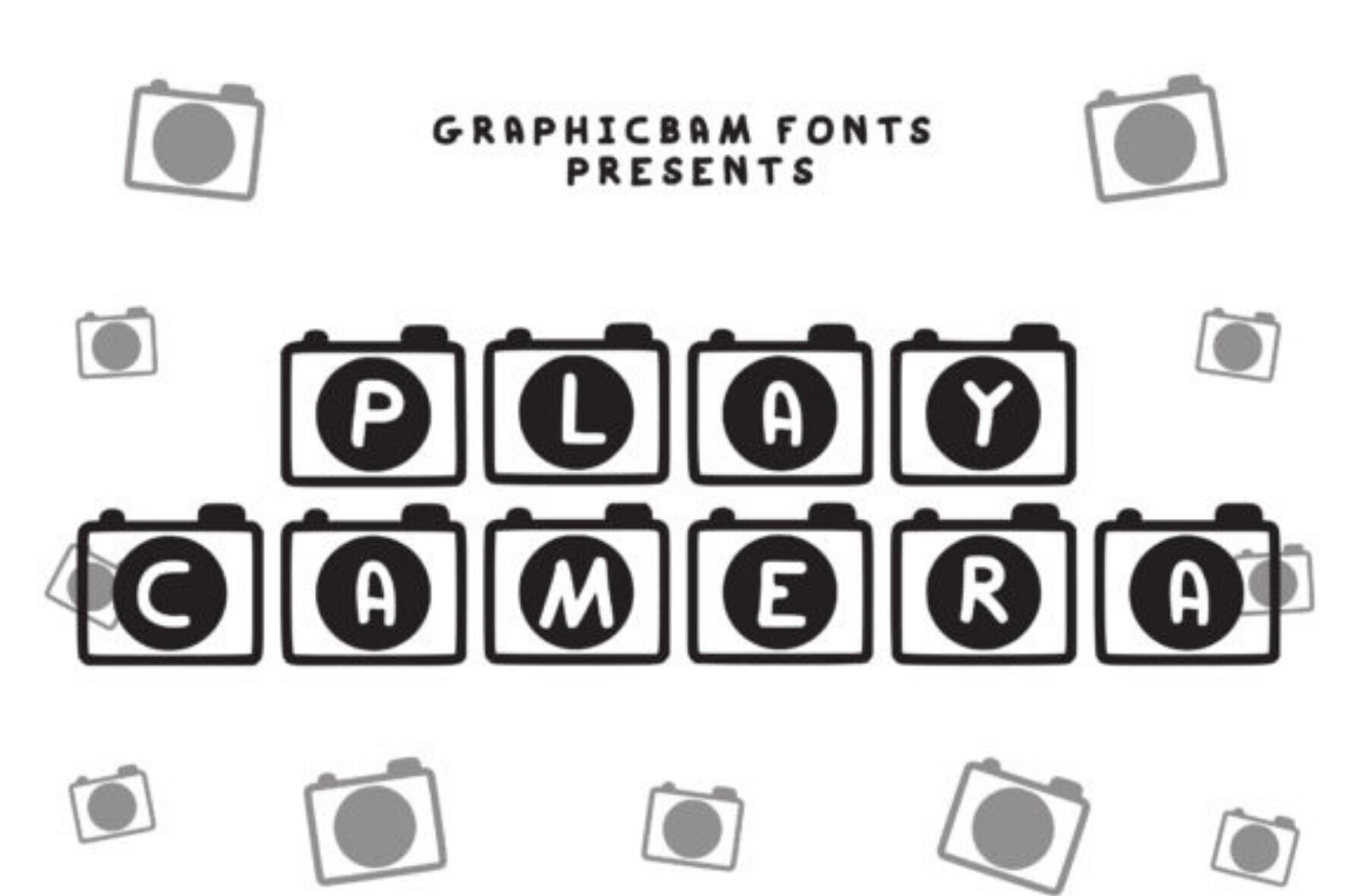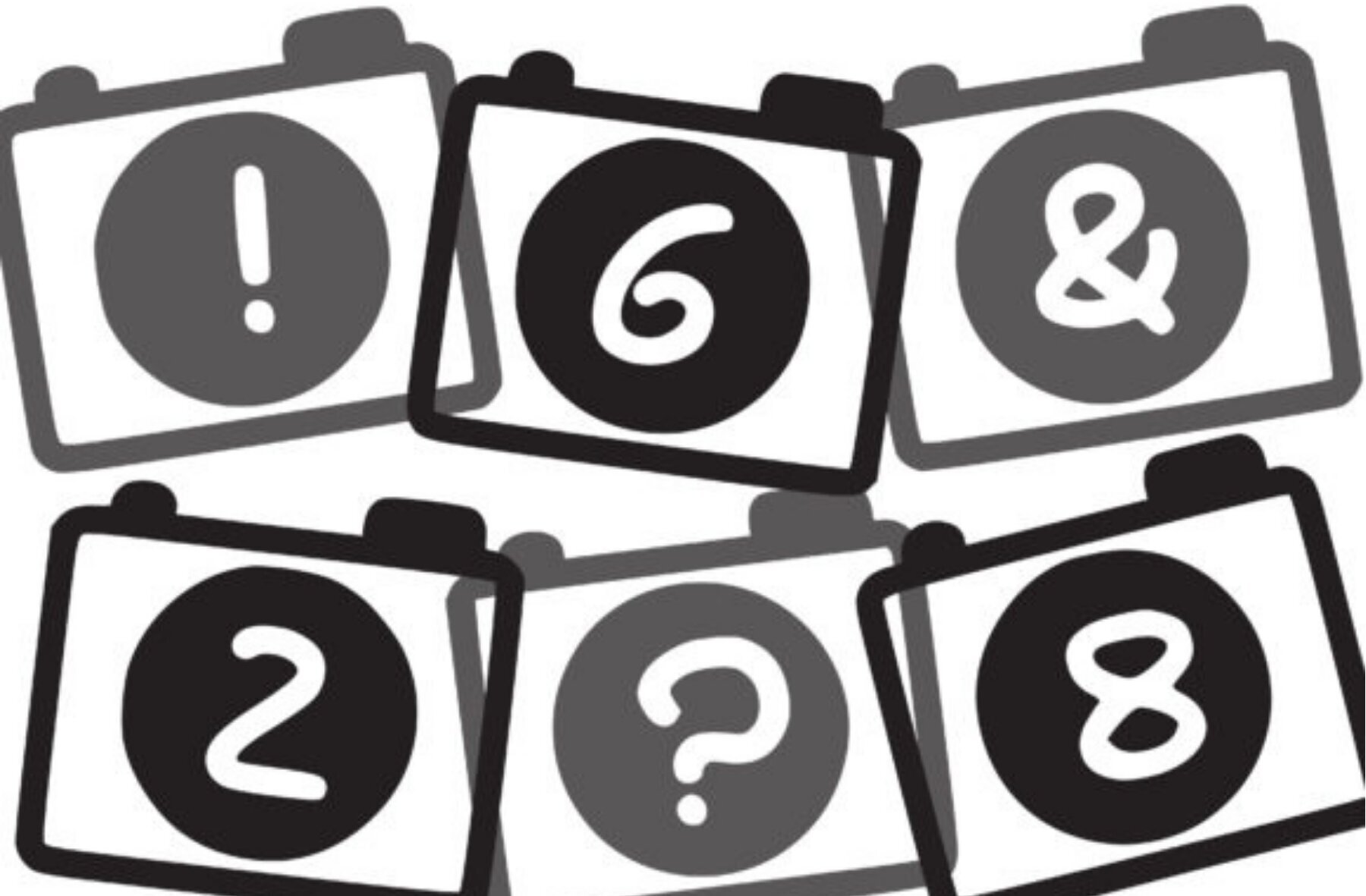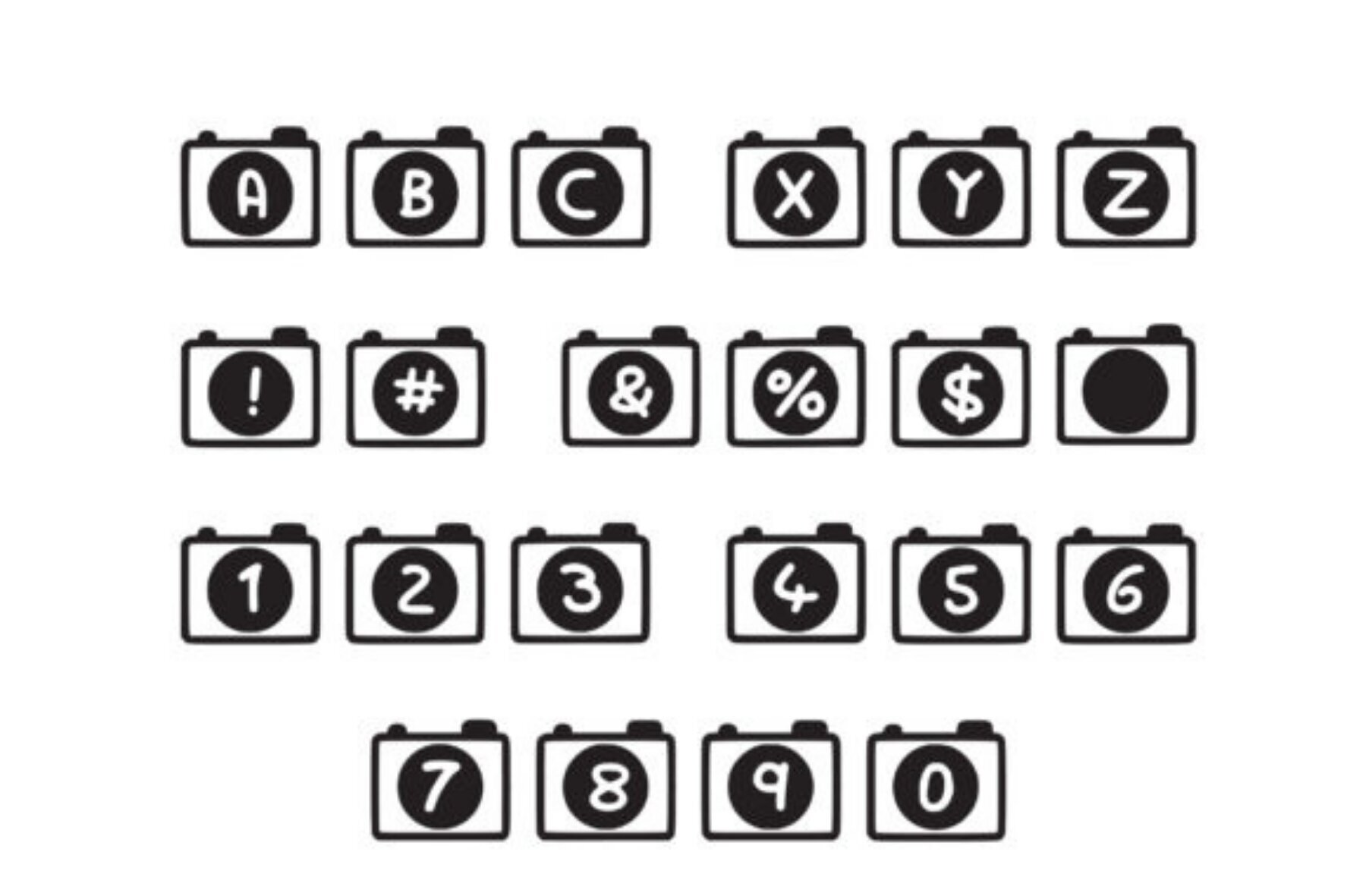
Play Camera Font
Play Camera Regular
Dive into the world of design with Play Camera, a uniquely decorative font that sparks creativity. Each character is artfully embellished with a camera, making it a standout choice for any project. Whether crafting personalized greeting cards, enhancing digital designs, or adding flair to presentations, Play Camera offers a visually intriguing touch. Its artistic style effortlessly draws attention while maintaining a playful aesthetic.Play Camera: Capture Creativity